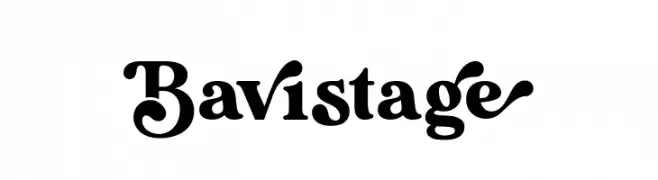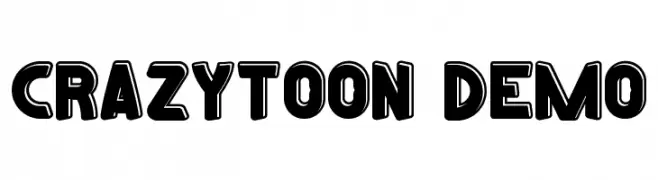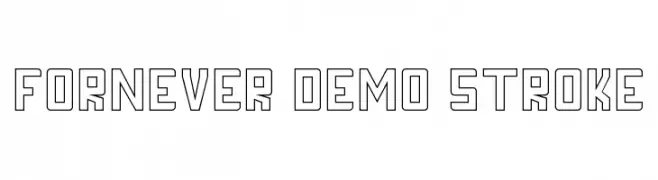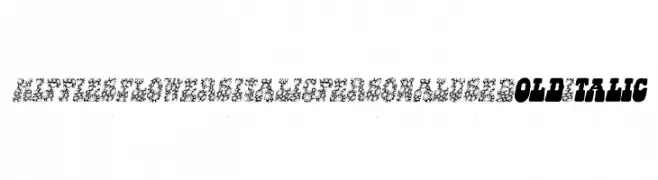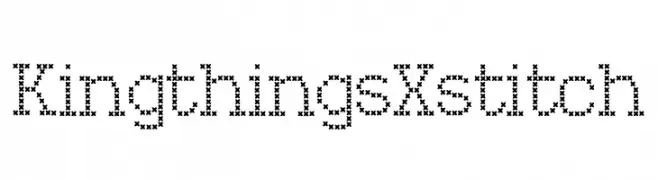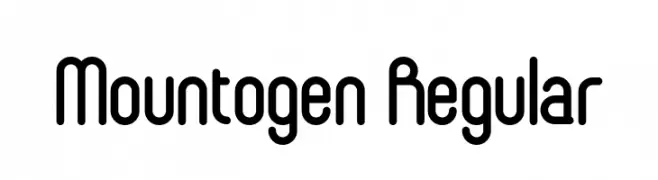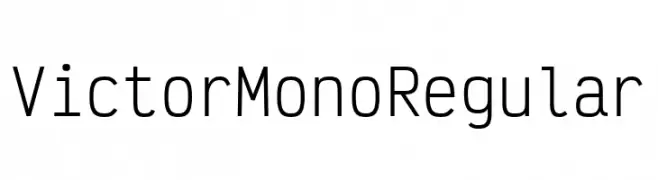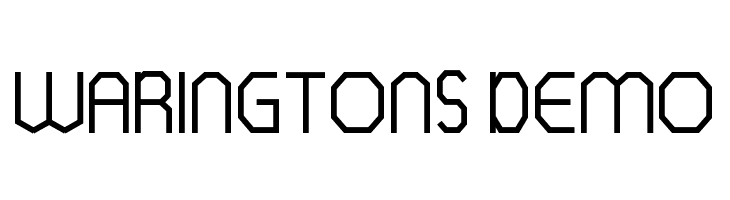
( Fonts by Kingthings )
A decorative font with a cross-stitch pattern, resembling traditional embroidery.
( Fonts by Rune Bjørnerås )
A modern, monospaced font with a clean and geometric design, perfect for coding.
( Fonts by Philipp Nurullin )
A bold, monospaced font ideal for coding with excellent readability.
( Fonts by Iconian Fonts )
A tech-inspired font with characters encased in laptop screen outlines.
A bold, decorative font with unique flourishes and strong visual impact.
A playful, rounded font with a modern-retro vibe, featuring tubular letterforms.
A bold, italic, floral-patterned decorative font with a retro vibe.
A bold, geometric outline font with a modern, industrial style.
A geometric, angular font with a modern, futuristic style.
A bold, playful font with a cartoonish style and shadow effect.